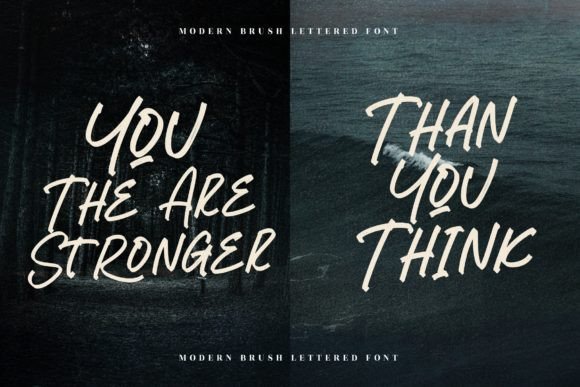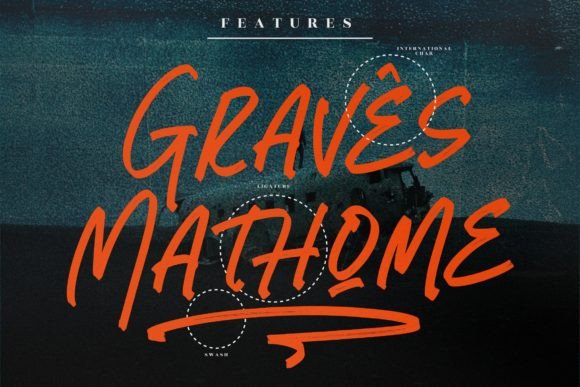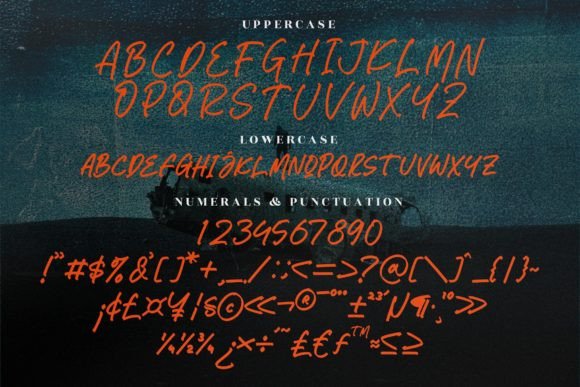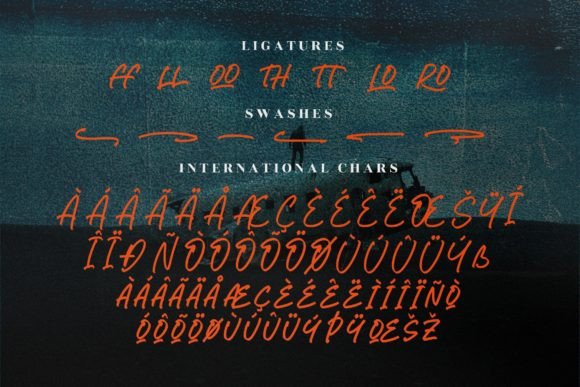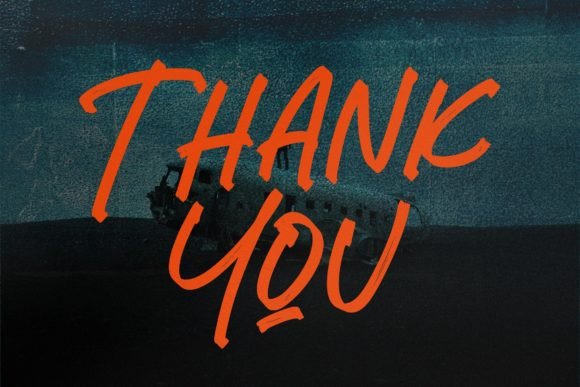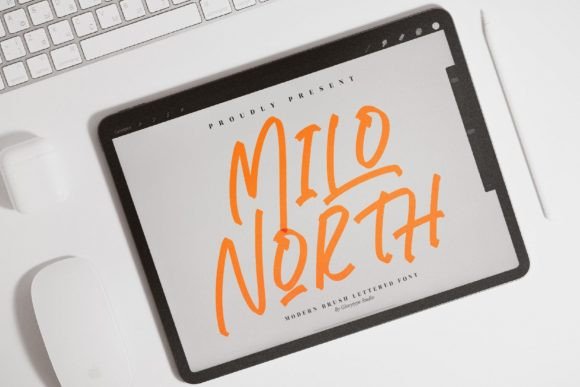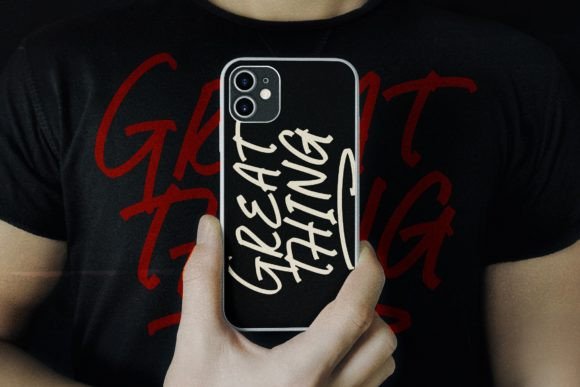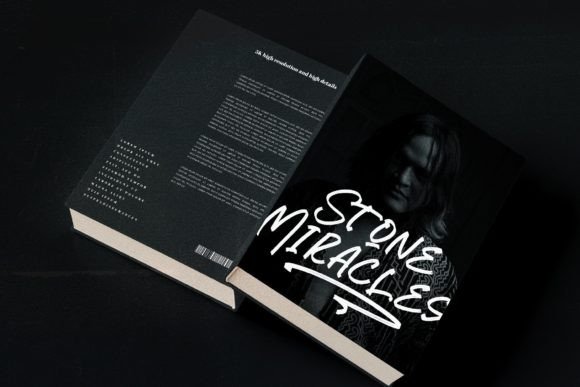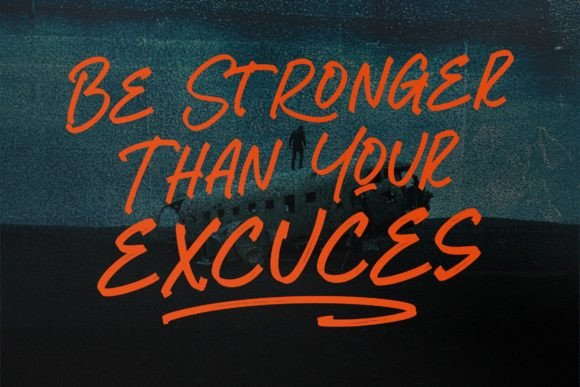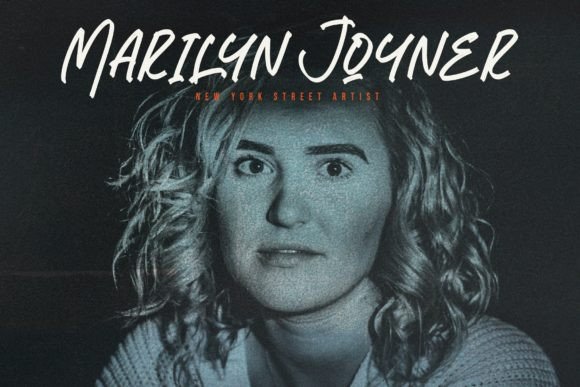
Milo North Font
About Milo North Font
Milo North is a modern brush lettered font that adds a stylish touch to a variety of projects. With its contemporary and expressive design, this font is well-suited for a wide range of creative applications. Whether you’re working on logos, branding projects, homeware designs, product packaging, mugs, quotes, posters, shopping bags, t-shirts, book covers, name cards, invitation cards, greeting cards, labels, photography, watermarks, special events, or any other lovely project that requires a beautiful script taste, Milo North delivers a sophisticated and dynamic aesthetic.
The brush lettering style of Milo North gives your text a modern and trendy look, making it stand out in diverse design contexts. Its versatility allows it to enhance the visual appeal of various products and promotional materials.
In summary, Milo North is not just a font; it’s a design element that brings a beautiful script taste to your creative endeavors. Whether applied to print or digital media, its modern brush lettering style makes it a valuable asset for designers aiming to infuse a contemporary and expressive flair into their projects.